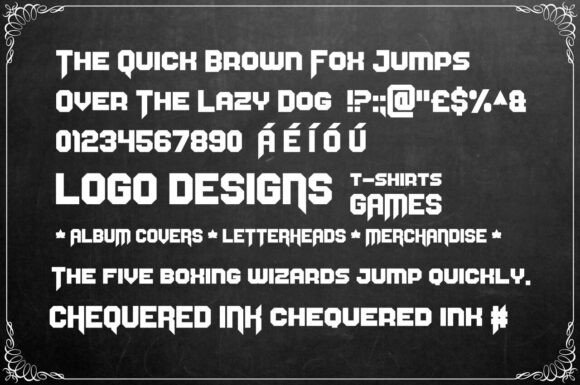
Axewielder Font: Elevate Your Brand with a Unique Hand-Crafted Feel
Are you tired of using generic fonts that fail to make your brand stand out? Look no further than the Axewielder Font, a game-changing typeface designed to give your brand that extra wow factor. Whether you’re designing a logo, website, album cover, video game, or T-shirt, this font is sure to elevate your product with its unique hand-crafted feel.
The Power of Typography
Typography is a crucial element in branding and design. The right font can convey your brand’s personality, tone, and values, while also setting you apart from the competition. However, with so many fonts available, it can be challenging to find one that truly reflects your brand’s identity. That’s where Axewielder Font comes in – a carefully crafted typeface that exudes a sense of individuality and craftsmanship.
What Makes Axewielder Font Special?
Axewielder Font is more than just a font – it’s an experience. Its unique hand-crafted feel gives your brand a personal touch that’s hard to replicate with generic fonts. Here are some key features that make Axewielder Font stand out:
- Hand-crafted feel: Each letterform has been carefully crafted to give your brand a personal, human touch.
- Unique character set: The font includes a range of characters, symbols, and ligatures that add to its distinctive feel.
- Versatile: Axewielder Font is suitable for a wide range of applications, from logos and branding to headlines and body text.
- Easily readable: Despite its unique feel, the font remains highly readable, making it perfect for both digital and print applications.
Applications for Axewielder Font
The versatility of Axewielder Font makes it suitable for a wide range of applications, including:
- Logo design: Create a memorable and distinctive logo that sets your brand apart.
- Website design: Elevate your website’s typography with a font that’s both stylish and readable.
- Album covers: Add a touch of personality to your music releases with a unique font that’s sure to stand out.
- Video games: Create a immersive experience with a font that adds to your game’s atmosphere and personality.
- T-shirts and merchandise: Give your merchandise a professional, high-end feel with a font that’s both stylish and durable.
Why Choose Axewielder Font?
With so many fonts available, why choose Axewielder Font? Here are just a few reasons:
- Unique feel: Axewielder Font offers a distinctive hand-crafted feel that’s hard to find in generic fonts.
- High-quality design: The font has been carefully designed to ensure it’s both stylish and readable.
- Versatile: Axewielder Font is suitable for a wide range of applications, making it a great investment for designers and crafters.
If you’re looking for a font that will give your brand a unique hand-crafted feel, look no further than Axewielder Font. With its distinctive character set, versatility, and high-quality design, this font is sure to elevate your product and set you apart from the competition. Whether you’re a designer, crafter, or simply someone looking for a unique font, Axewielder Font is an excellent choice.